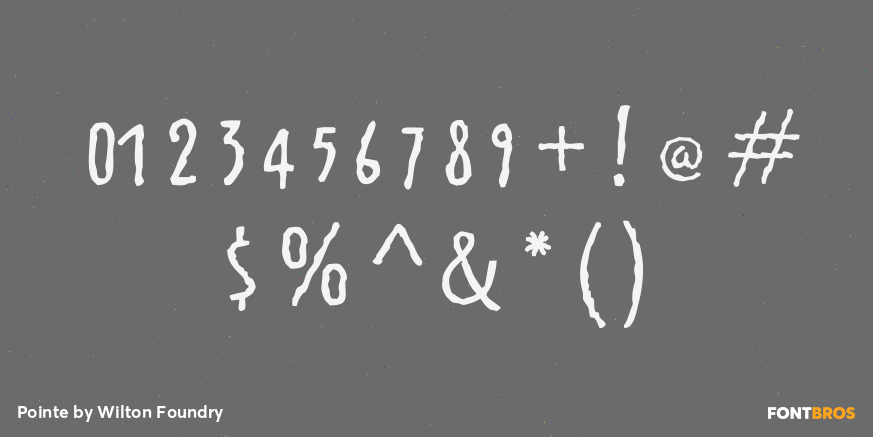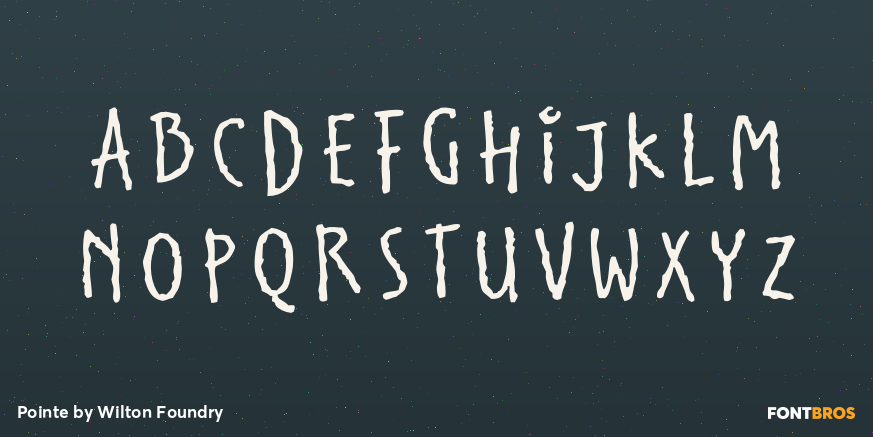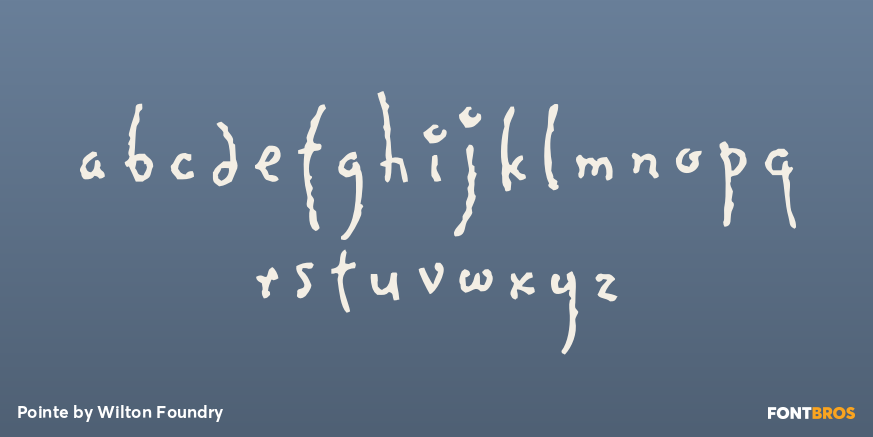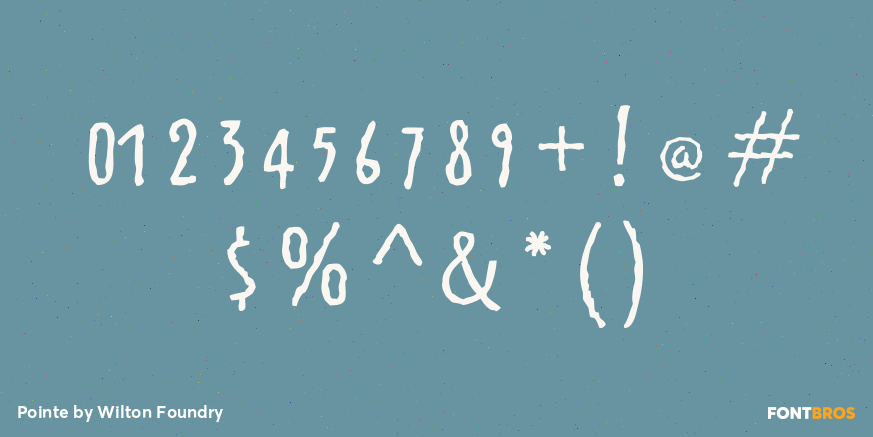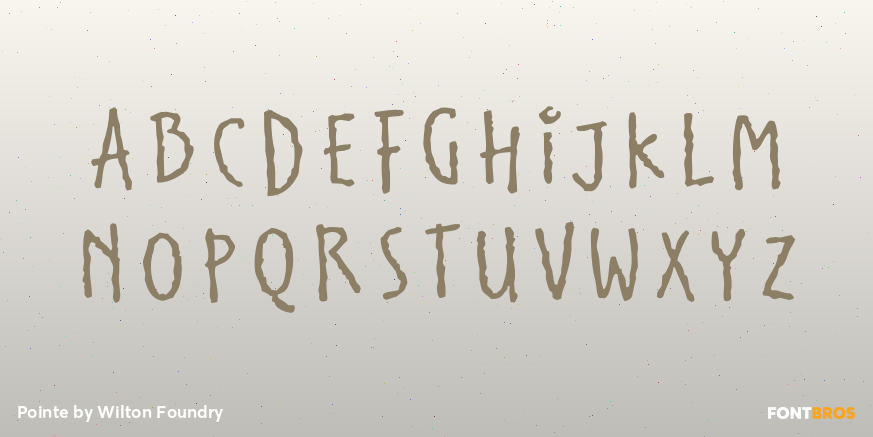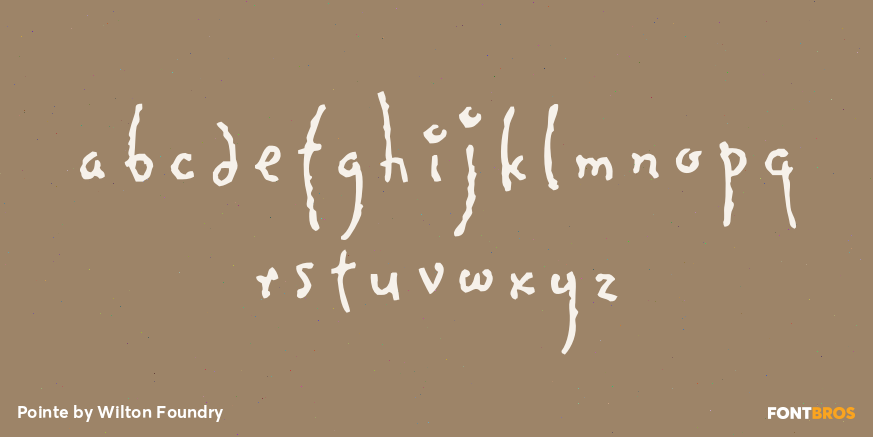
Pointe
Font Family by Wilton Foundry
Pointe is a loose, fun and informal font lending itself ideally to Advertising, Packaging design, Invitations and Scrapbooking.